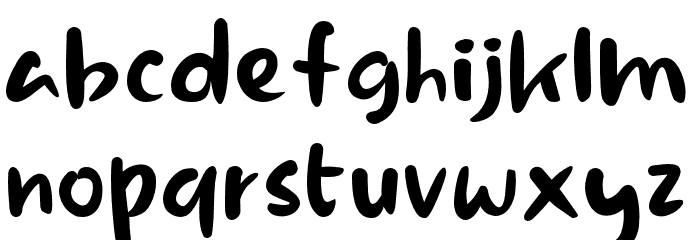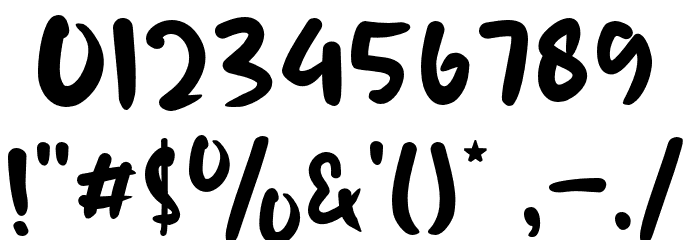
cruftycraf Font
This font features a playful and casual handwritten style, characterized by its bold and rounded letterforms. The strokes are consistent in thickness, giving it a uniform appearance. The letters have a slight slant, adding to the informal and friendly feel. The uppercase and lowercase letters are well-proportioned, with the uppercase being slightly larger. The numbers and special characters maintain the same playful aesthetic, making them easily readable. This font is ideal for projects that require a personal touch, such as invitations, greeting cards, or children's book covers.
A playful, bold handwritten font with rounded, consistent strokes.
- Proposed Projects: Ideal for invitations, greeting cards, children's books, and casual branding.
- Category: Handwritten
- Overall Style: Casual
- Use Case: Headlines, Logos, Invitations